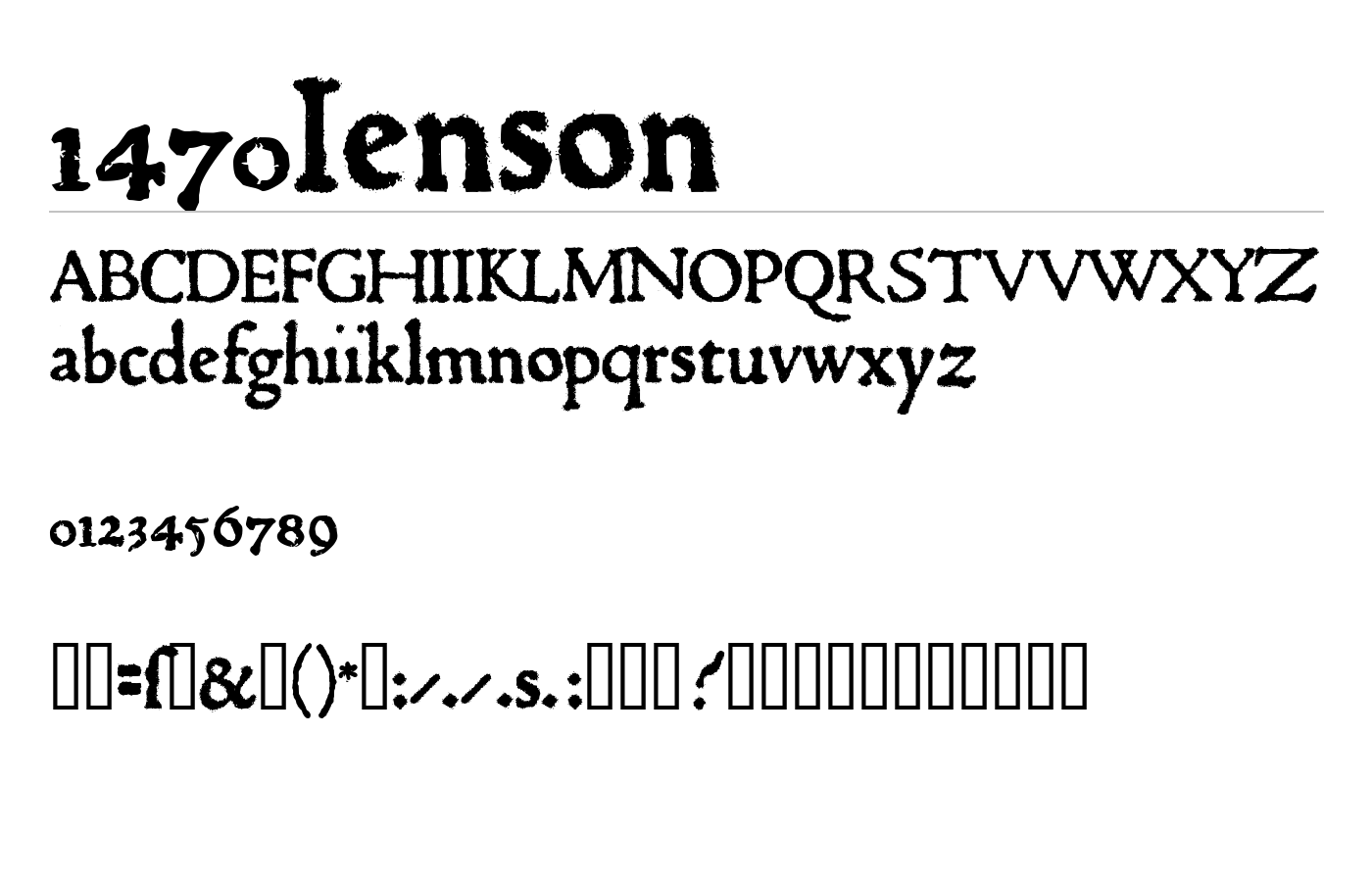
1470Jenson is a classic serif typeface that echoes the elegance of old-style Renaissance fonts with its moderate contrast and organic, hand-crafted feel. Its slightly irregular strokes and bracketed serifs give it a timeless, scholarly character, making it ideal for literary works, historical projects, and sophisticated editorial design where a touch of tradition and authenticity is desired. This font works beautifully for headlines and longer texts alike, lending a refined yet approachable tone to any creative or academic application.
1470Jenson Font
About 1470Jenson Font